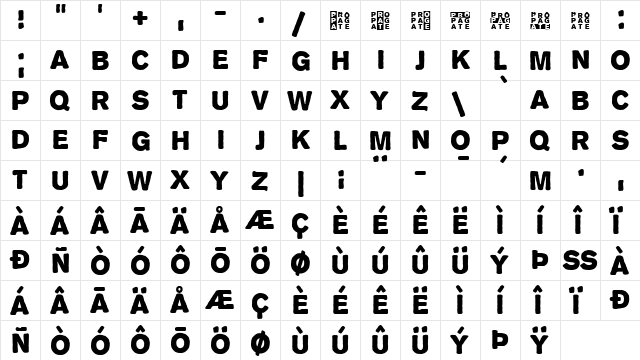
Propaganda Regular
Design Context for Propaganda Typeface
Propaganda is a composed and adaptable typeface that performs quietly and consistently across a wide range of design contexts.